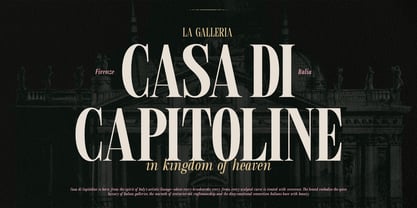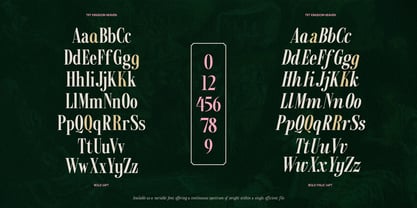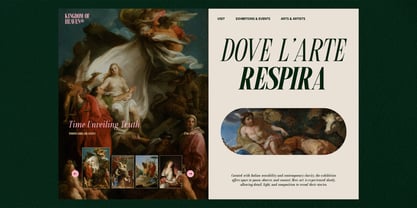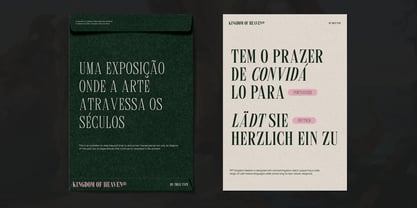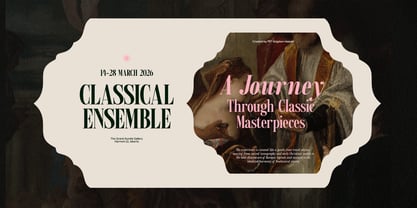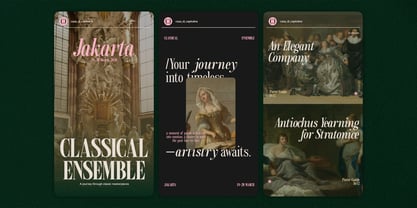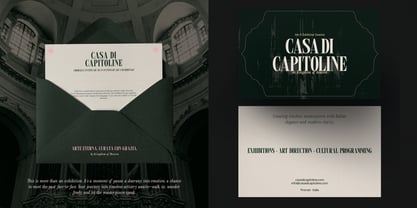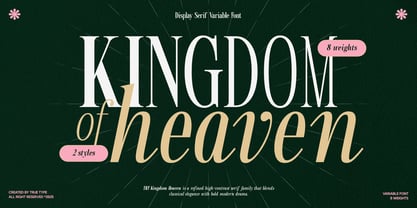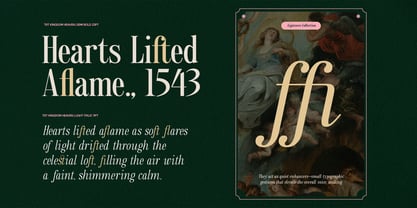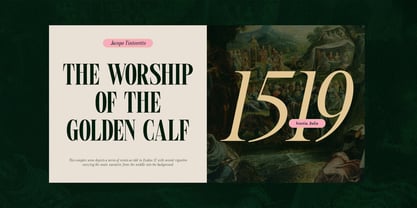
TRT Kingdom Heaven
The TRT Kingdom Heaven Font Family was designed by Yusilo Oktaprima Ardani and published by True Type Lab. TRT Kingdom Heaven contains 16 styles and family package options. More about this family
TRT Kingdom Heaven is a refined serif family complete with a beautifully crafted True Italic. Designed with elegant curves, classic proportions, and a modern touch, this typeface brings a majestic and sophisticated feel to any design project perfect for branding, editorial layouts, invitations, packaging, and display typography. The True Italic style introduces expressive strokes, graceful movement, and an authentic handwritten influence, making headlines, quotes, and visual storytelling feel richer and more emotional. With its balance of clarity and elegance, TRT Kingdom Heaven offers versatility for both formal and creative applications. At True Type, we create typefaces that combine craftsmanship, beauty, and functionality made to enhance every visual narrative you build.